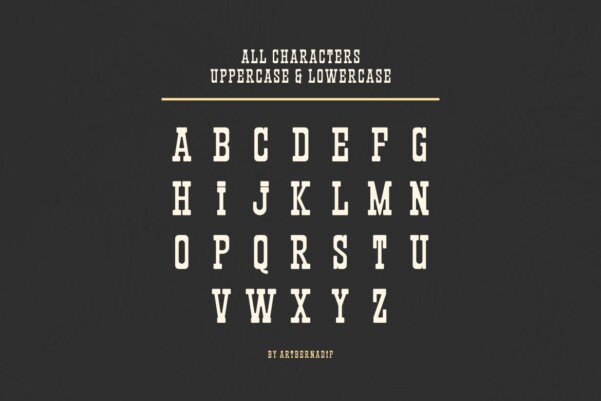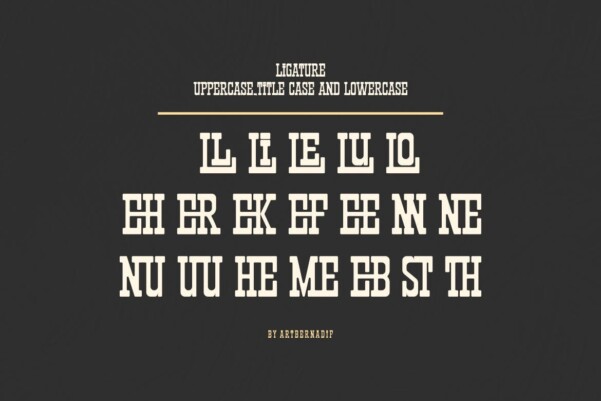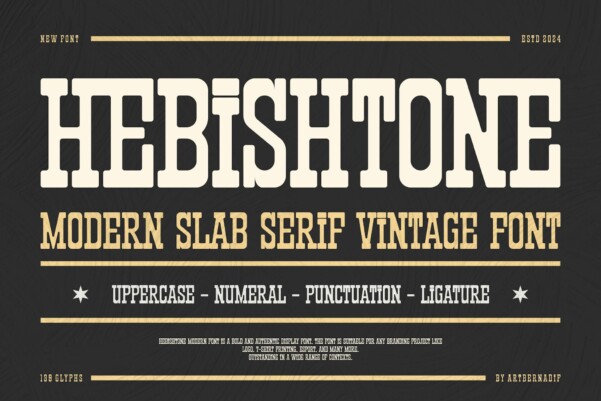
Hebishtone Font
Designer: Bernadifdion
Hebishtone Font – Modern Font is a bold and authentic display font. The font is suitable for any branding project like logo, t-shirt printing, esport, and many more. outstanding in a wide range of contexts.